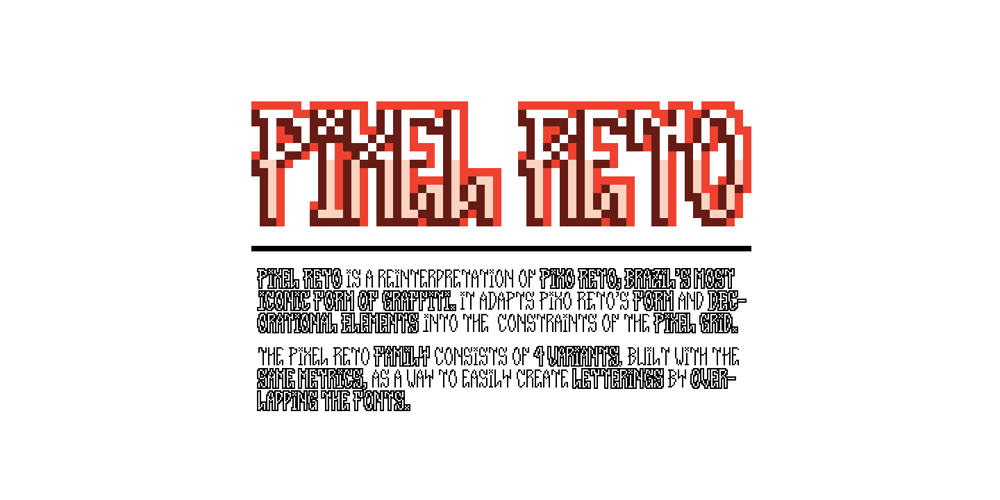
Pixel Reto
Pixel Reto font
Pixel Reto Font Family was designed by Gabriel Figueiredo and published by Typeóca. Pixel Reto contains 4 styles and family package options. Pixel Reto is a reinterpretation of one of Brazil’s most iconic form of graffiti, adapting its form and its decorational elements into the constraints of the pixel grid. The Pixel Reto family consists of 4 variants, built with the same metrics as a way to easily create letterings by overlapping the fonts. To make sure Pixel Reto fits neatly into the pixel grid, use it only in sizes multiples of 16, and set your anti-aliasing to none (or sharp, depending on the program).